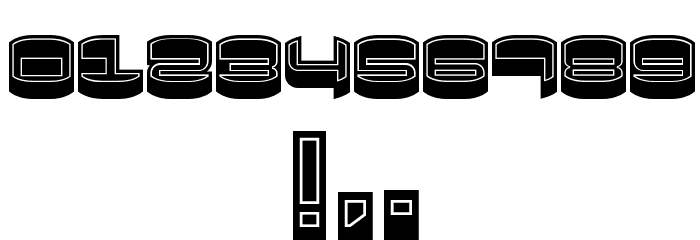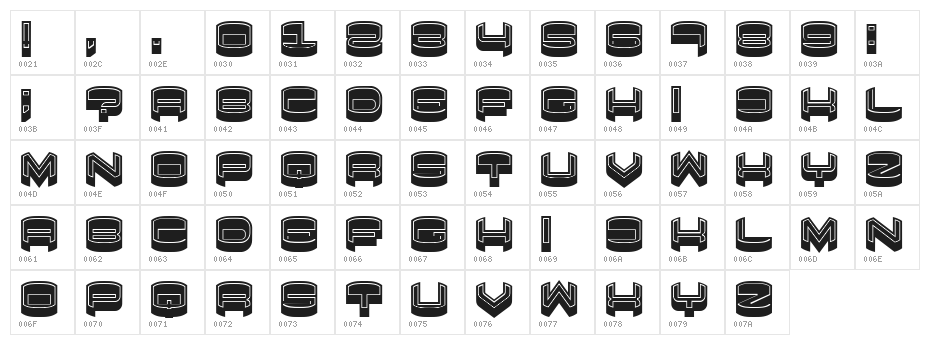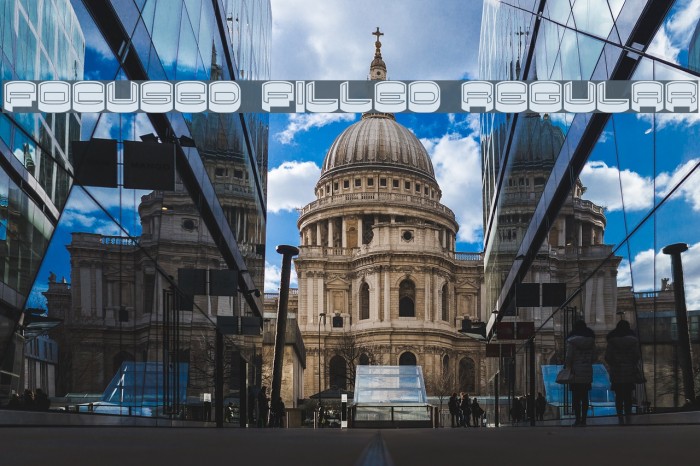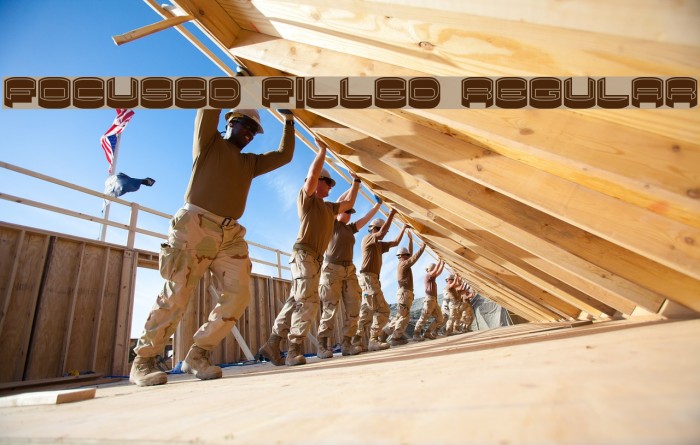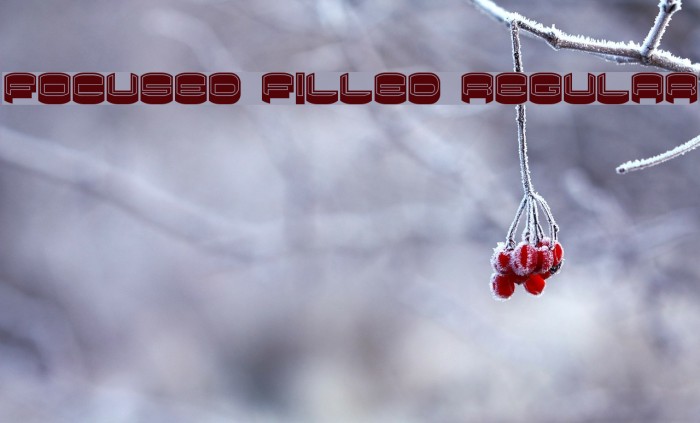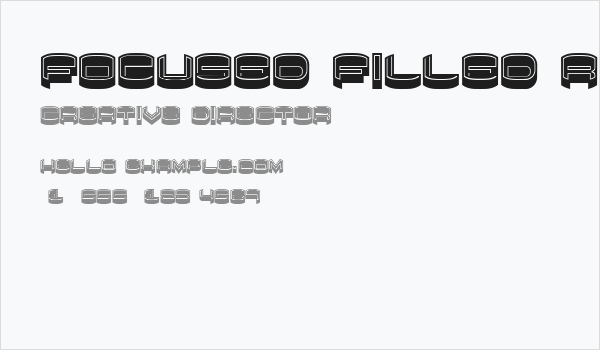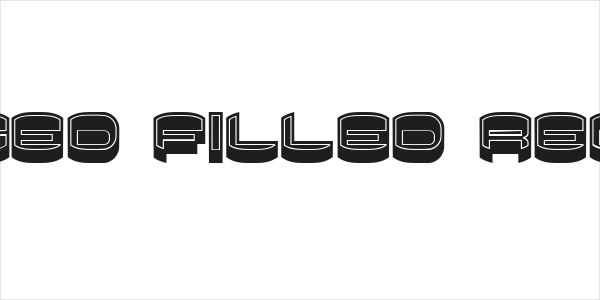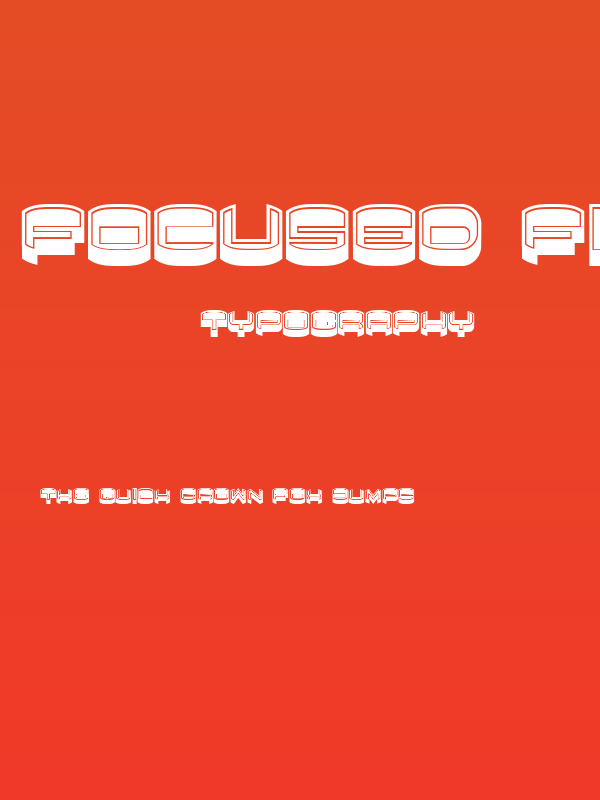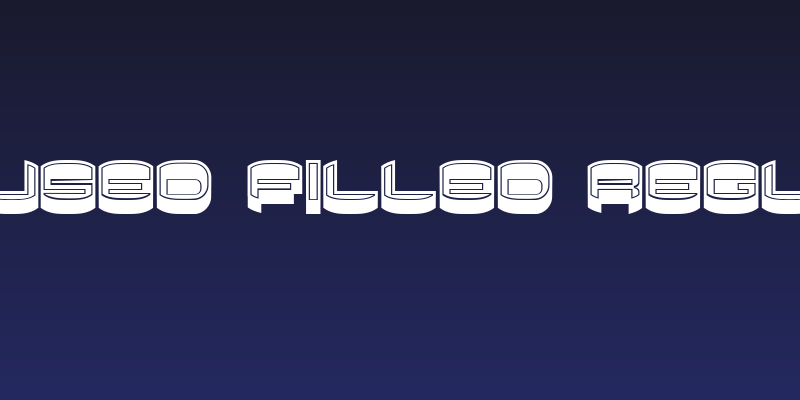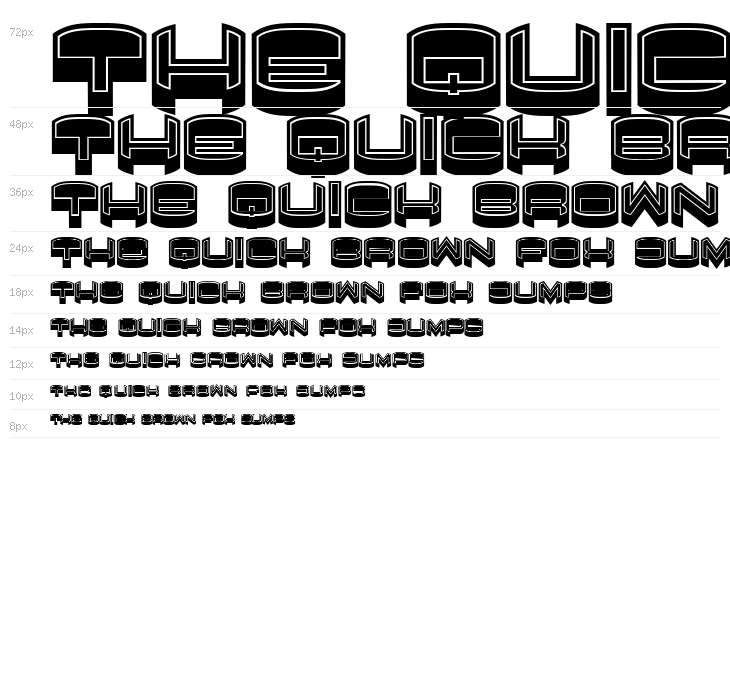
Focused Filled Regular Font
Focused Filled Regular Description
This font features a bold, three-dimensional appearance with a filled interior and a thick outline, creating a striking visual effect. The characters are uniformly wide, with a geometric and futuristic style that emphasizes symmetry and structure. The uppercase and lowercase letters maintain a consistent design, while the numerals and special characters complement the overall aesthetic. The font's boldness and unique style make it stand out, suitable for projects that require a modern and impactful look.
| Proposed Projects | Ideal for logos, posters, video game graphics, and any design needing a bold, modern touch. |